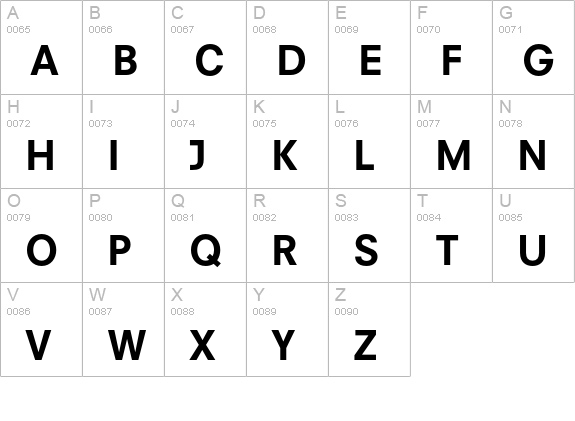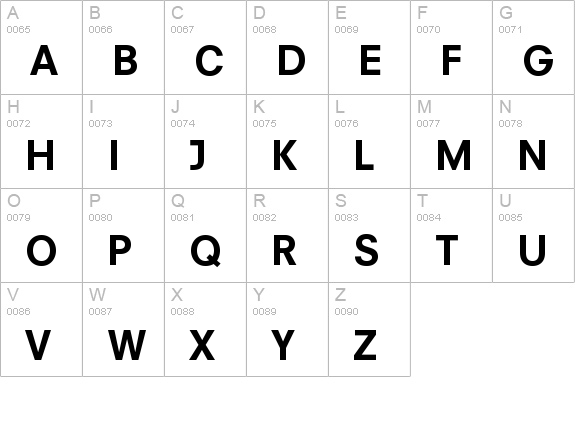
NeuzeitS BookHeavy Font Details
NeuzeitS BookHeavy is a bold and impactful font that exudes a sense of strength and modernity. Its clean lines and sturdy appearance make it perfect for headlines, titles, and other display purposes. This font commands attention and adds a touch of sophistication to any design project. The best part? NeuzeitS BookHeavy is available for free download at FontsMarket.com. This means you can enhance your creations with this stunning font without having to spend a penny. Don't miss out on the opportunity to elevate your designs with the striking presence of NeuzeitS BookHeavy. Download it now and let your creativity shine!